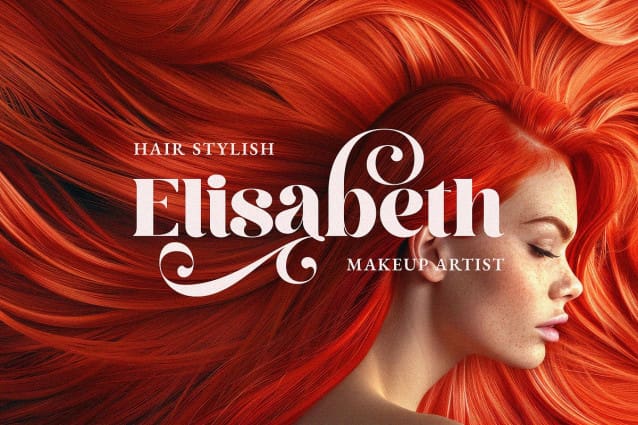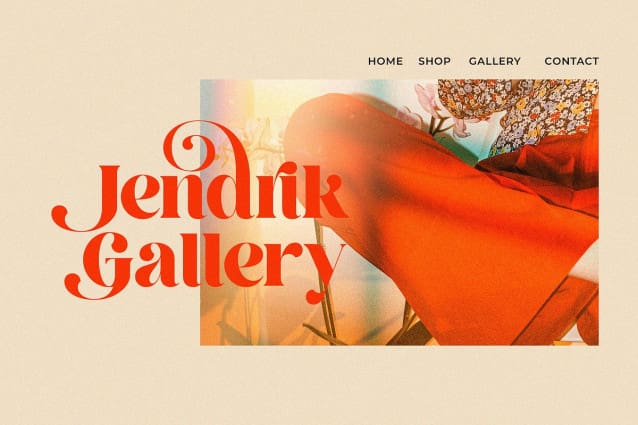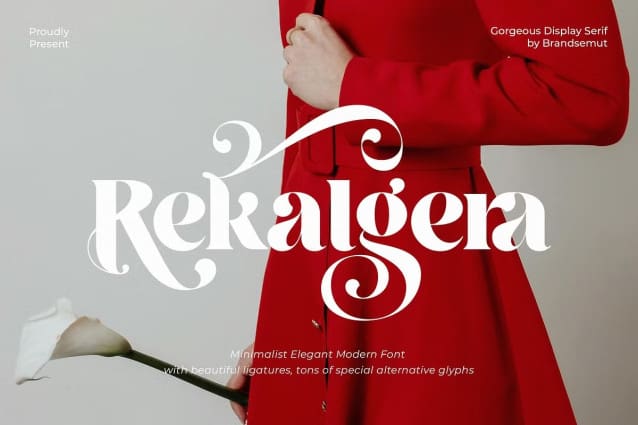
Rekalgera Font
Rekalgera Font is a unique, elegant and classy display serif, best used as a display for headings, logos, branding, magazines, product packaging and invitations. Rekalgera equipped with Ligature and many Alternates and come with clean lines and smooth curves give any project an extra touch of class.